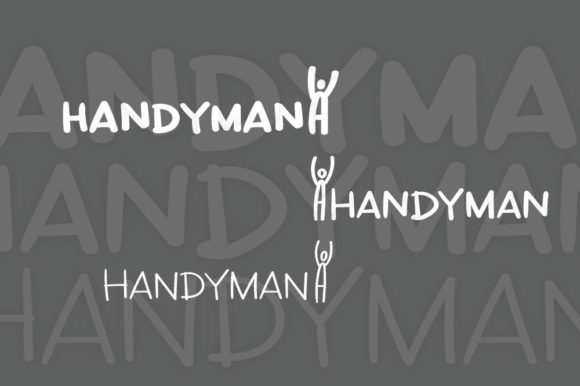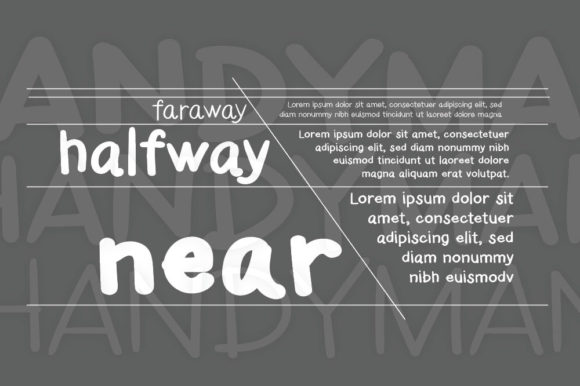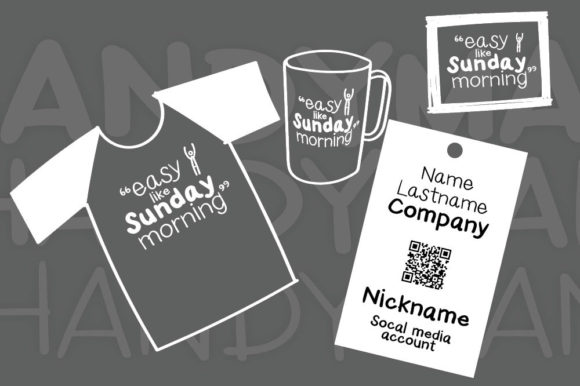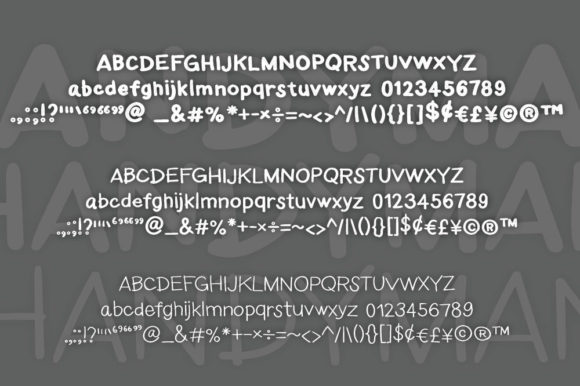
Introducing Handyman Font: The Perfect Handwritten Touch for Your Creations
Are you a designer or crafter looking for a font that adds a personal touch to your projects? Look no further than Handyman Font! This friendly, simple, and clean handwritten font is perfect for anyone who wants to bring a natural and authentic look to their creations. With its plain characters and effortless style, Handyman Font is sure to become your go-to choice for all your design needs.
The Characteristics of Handyman Font
Handyman Font is a beautifully crafted handwritten font that boasts a range of characteristics that make it perfect for a wide range of projects. Some of its key features include:
- Friendly and approachable: Handyman Font has a warm and welcoming feel that’s perfect for creating a connection with your audience.
- Simple and clean: The font’s plain characters make it easy to read and understand, while its clean lines ensure that it looks great in any context.
- Natural and authentic: Handyman Font has a distinctly handwritten feel that’s perfect for creating a sense of authenticity and personality in your designs.
What Projects is Handyman Font Suitable For?
One of the best things about Handyman Font is its versatility. This font is suitable for a wide range of projects, including:
- Branding and logos: Add a personal touch to your brand with a custom logo that showcases your unique personality.
- Invitations and greeting cards: Create beautiful, handmade-style invitations and greeting cards that will make your recipients feel special.
- Signage and posters: Use Handyman Font to create eye-catching signs and posters that will grab attention and communicate your message.
- Packaging and labels: Add a touch of personality to your product packaging with custom labels and tags that showcase your brand’s unique style.
Why Choose Handyman Font?
With so many fonts to choose from, why should you choose Handyman Font? Here are just a few reasons why this font stands out from the crowd:
- Easy to read: Handyman Font is clear and easy to read, making it perfect for body text and headings.
- Highly versatile: This font works well in a wide range of contexts, from digital designs to print materials.
- Unique and authentic: Handyman Font has a distinctly handwritten feel that will help your designs stand out from the crowd.
Tips for Using Handyman Font
To get the most out of Handyman Font, here are a few tips to keep in mind:
- Use it with a contrasting font: Pair Handyman Font with a bold, geometric font to create visual interest and contrast.
- Experiment with colors: Handyman Font looks great in a range of colors, from bright and bold to muted and pastel.
- Don’t be afraid to get creative: Handyman Font is a versatile font that can be used in a wide range of contexts, so don’t be afraid to experiment and try new things!
| Font Name | Handyman Font |
| Author | pointsandpicas |
In conclusion, Handyman Font is a beautiful and versatile handwritten font that’s perfect for designers and crafters who want to add a personal touch to their creations. With its friendly, simple, and clean design, this font is sure to become a staple in your design toolkit. So why wait? Download Handyman Font today and start creating your own unique and authentic designs!